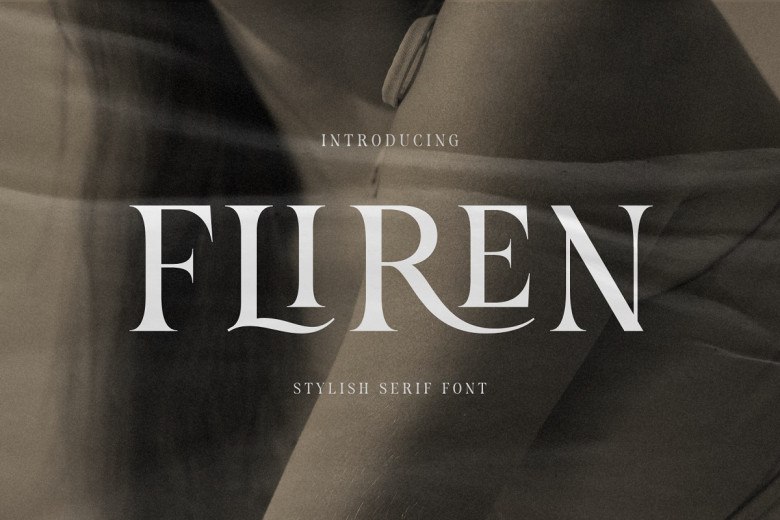
Fliren Font
Fliren is a clean and elegant serif typeface with the influence of traditional and progressive feeling. Fliren’s clean and pretty shapes make it ideal for any kind of projects that call for elegance and class; examples of such projects include branding, magazines, wedding announcements, and other sophisticated design applications. This font has a classical appearance and mature look and guarantees your designs will have the certain elegance. Let Fliren enhance your work and increase the refinement it provides to your work.
Fliren Serif Font